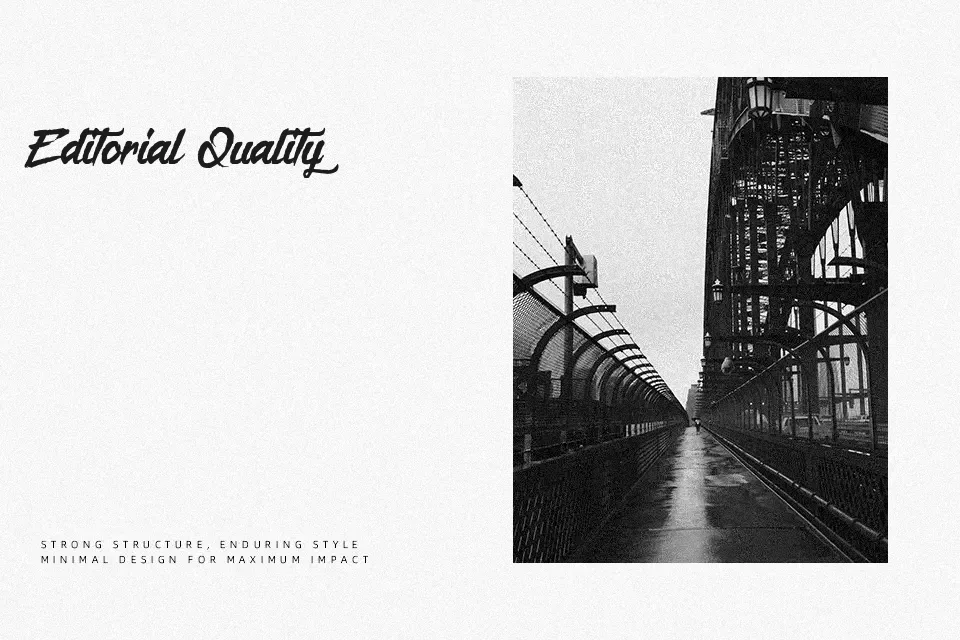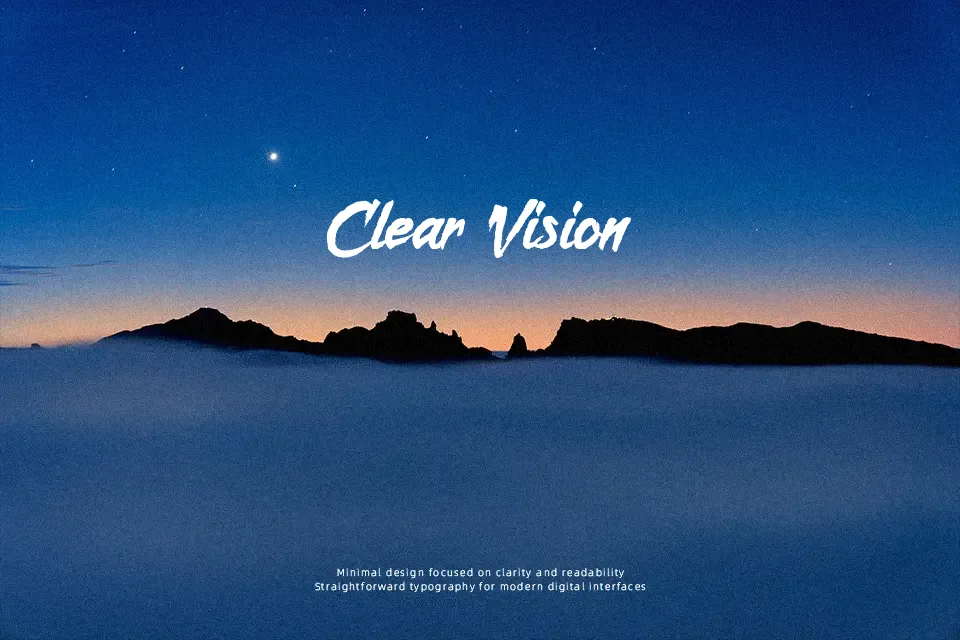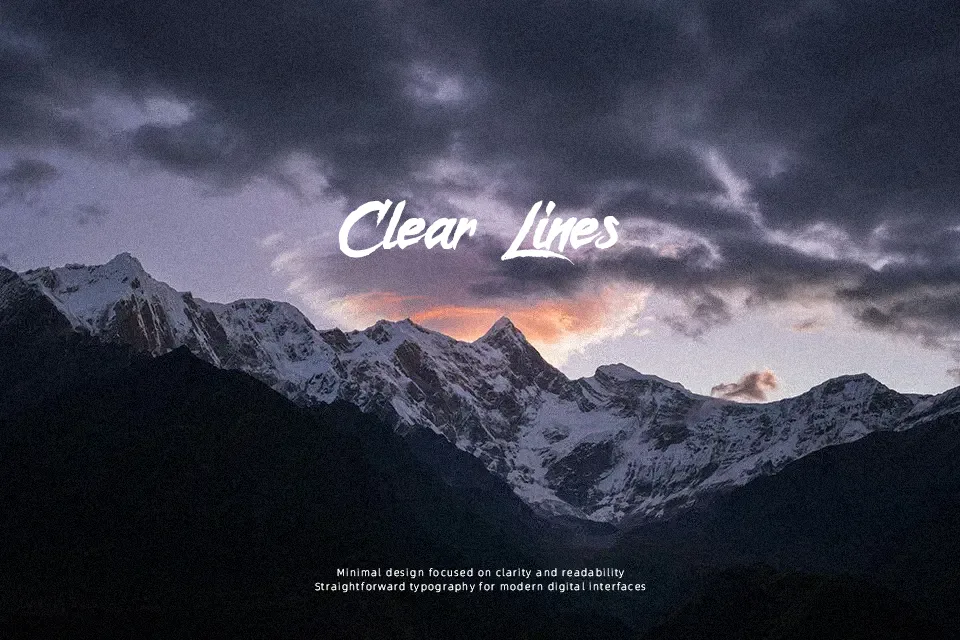
Captain Redemption Font
Captain Redemption Font showcases an aggressive display structure defined by jagged contours, distressed dry-brush strokes, and prominent diagonal energy. Its bold letterforms carry high visual weight with irregular terminal edges, establishing a raw, kinetic cadence across title sequences. Character spacing remains tight to reinforce punchy compositions in large headline settings. However, the abrasive detailing and textured outlines severely impair legibility at reduced scale, making the typeface impractical for continuous body text, mobile UI labels, or dense editorial layouts. The design performs most reliably when given ample space in entertainment branding and atmospheric poster art.
Best For: horror movie titles, Halloween promotional graphics, heavy metal album art, edgy streetwear prints
Not Ideal For: continuous body text, corporate reports, mobile interface labels, dense editorial layouts
Perfect for film, gaming, and halloween, with a bold and brush style.